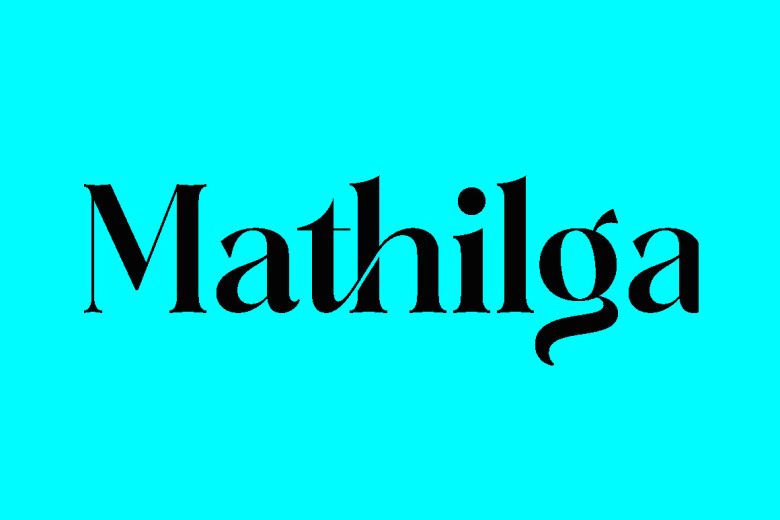
Mathilga Font
Introducing Mathilga is a Modern and Classic Serif. Mathilga is a serif typeface that which is clearly influenced by roman writing, primarily through Possuelo inscriptions, characterized by the use of thin and thick lines.
It is perfect for an elegant & luxury logo, a book or movie title design, fashion brand, magazine, clothes, lettering, quotes, and much more. Mathilga font is PUA encoded which means you can access all of the glyphs and swashes with ease!
Mathilga Serif Font